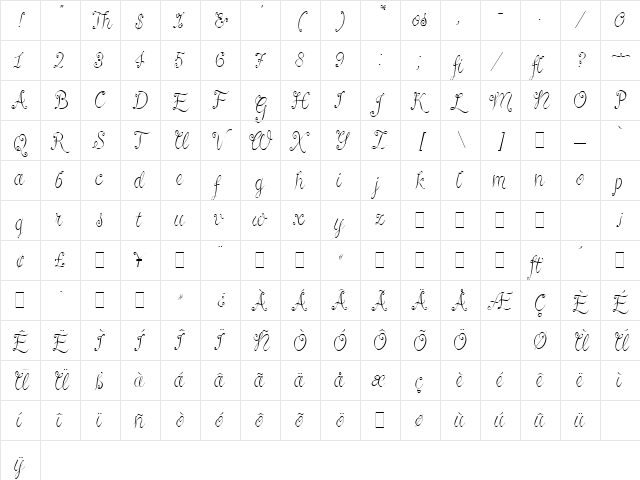
Riva LET Plain
Design Context for Riva LET Typeface
Riva LET takes a measured approach to typography — its balanced proportions and neutral character make it a reliable workhorse for both digital and print work.